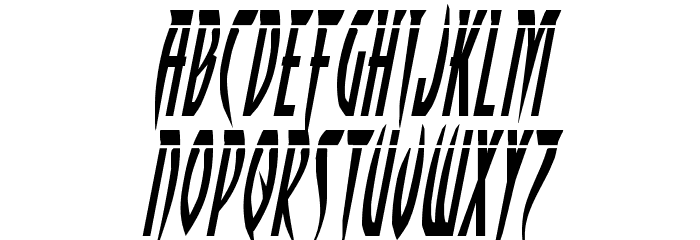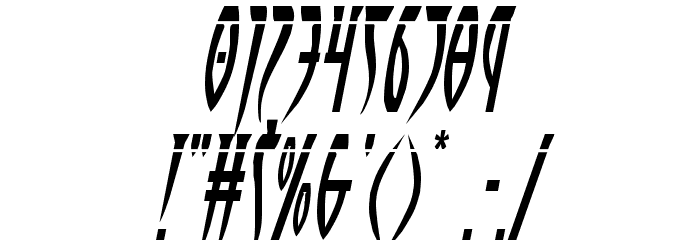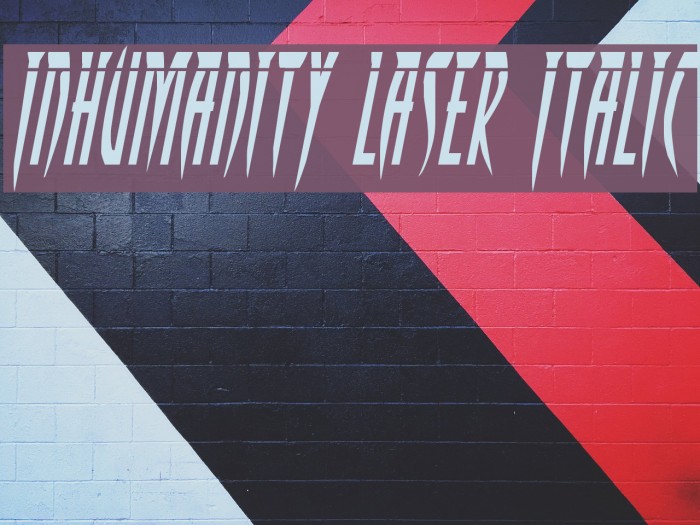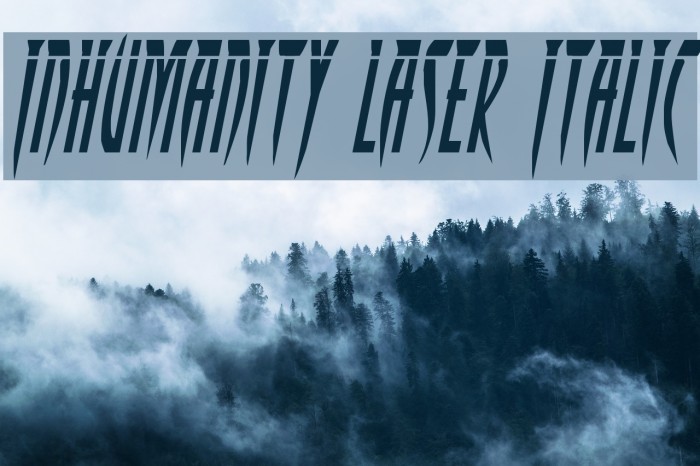
Inhumanity Laser Italic Font
This font features a futuristic and dynamic design, characterized by sharp, angular lines and a pronounced italic slant. The letters are elongated and narrow, giving a sense of speed and motion. The uppercase and lowercase letters maintain a consistent style, with a unique flair in the strokes that adds to its edgy appearance. Numbers and special characters follow the same design principles, ensuring uniformity across all glyphs. The overall look is bold and eye-catching, making it suitable for projects that require a modern and aggressive aesthetic.
A futuristic, italic font with sharp, angular lines and a dynamic style.
- Proposed Projects: Ideal for sci-fi themed designs, video game titles, tech branding, and futuristic posters.
- Character Spacing: Tight